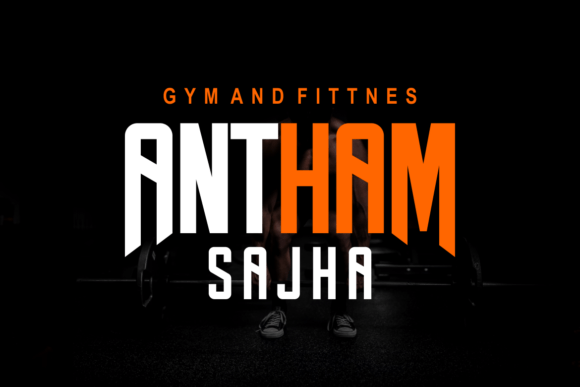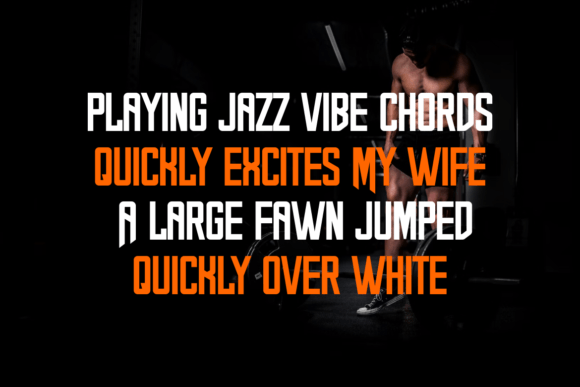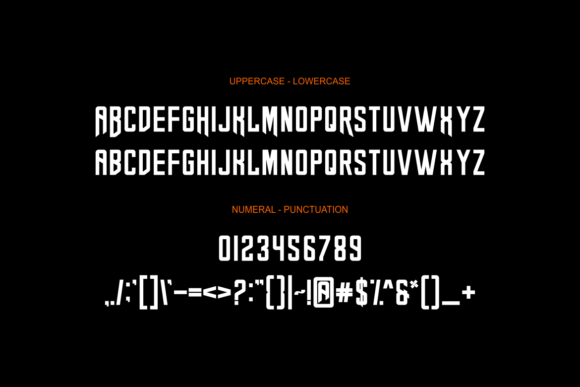
Bharick Font
Bharick is a bold and assertive sans serif font. No matter the topic, this font will be an incredible asset to your fonts' library, as it has the potential to elevate any creation.